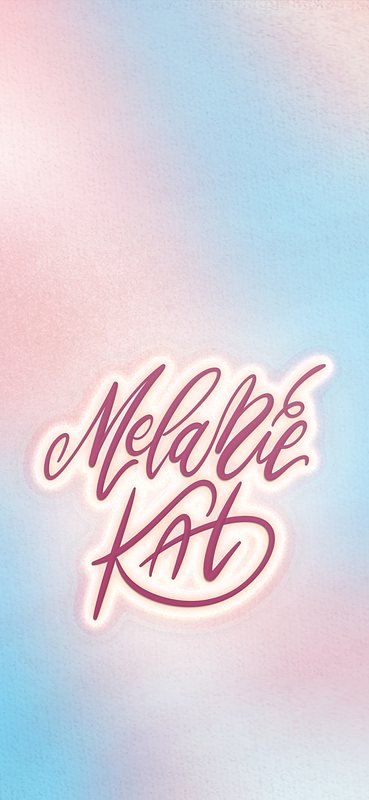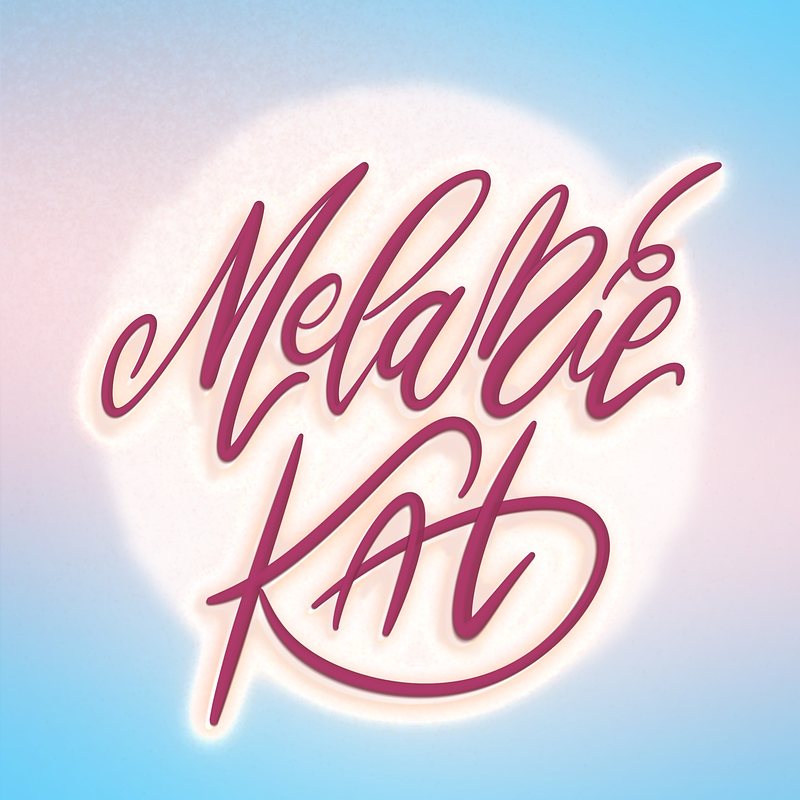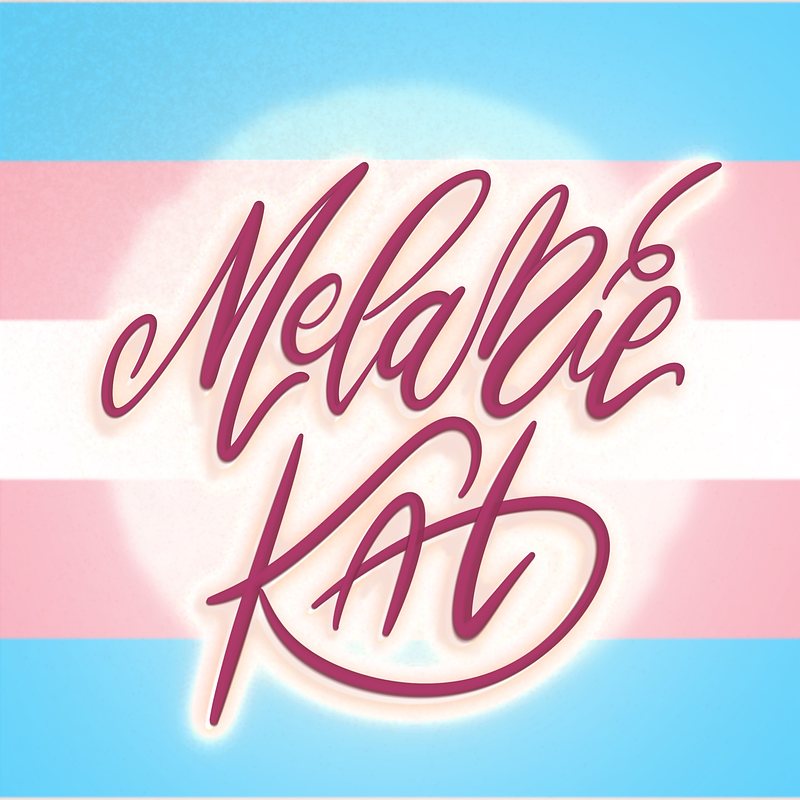
The Commission 00002-Wallpaper for Melanie Kat
Melanie tried to help me get a new iPad (and you can help too!) by commissioning me to create a lettering design for her name.
The brief is simple:
• Name: Melanie Kat
- Chosen Style: Clean
- Preferred Colors: 🩵🩷🤍🏳️‍⚧️
This is the lettering design I came up with:
I love the given color palette; it's fun and cute but also delicate. So, I tried to capture that feeling in my lettering design.
I'm pleased with the result and hope to do something like this again.